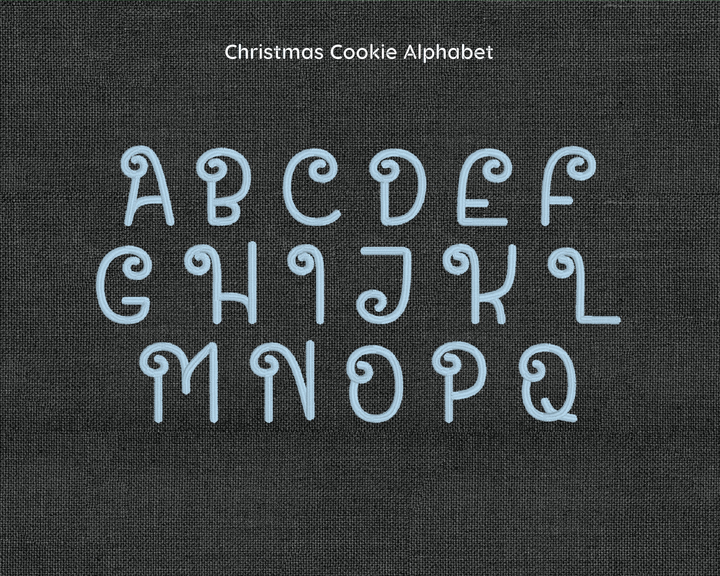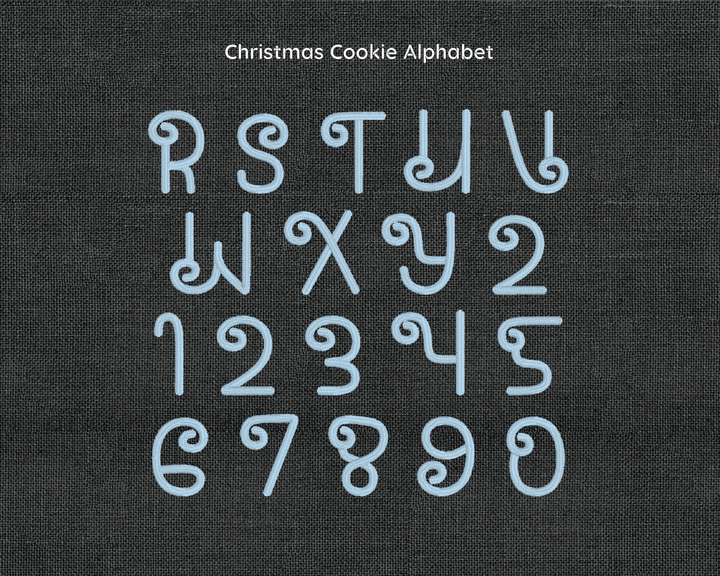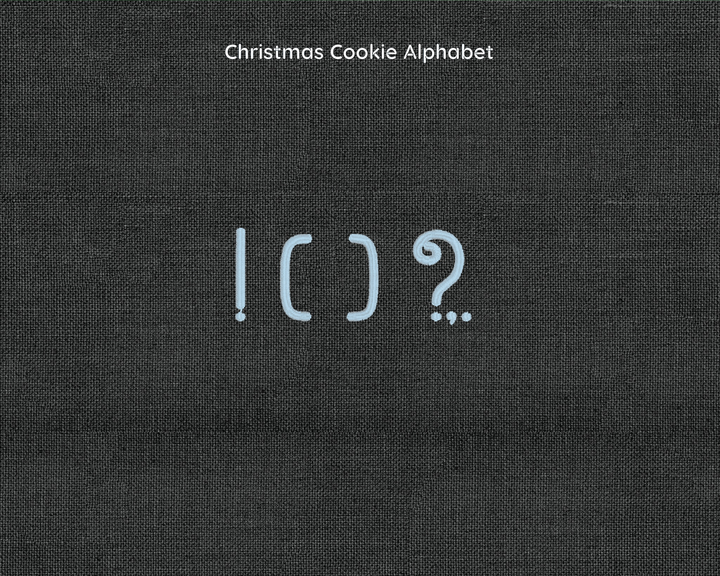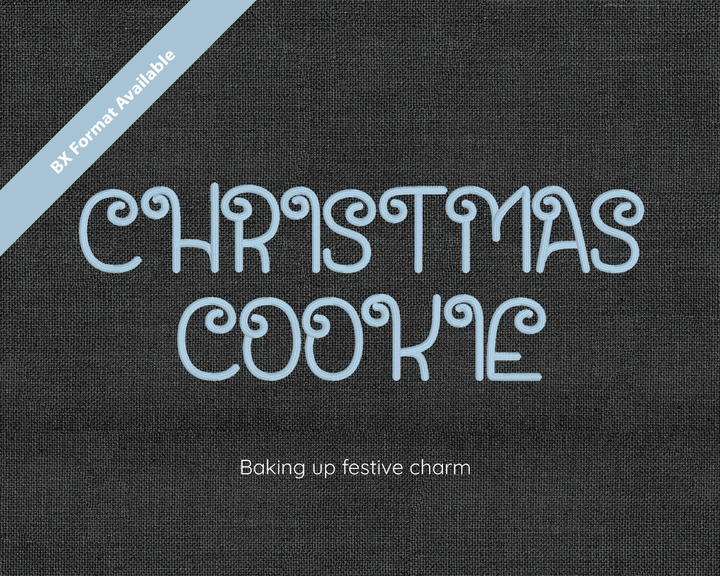
Photograph of Christmas Cookie embroidery font
Photograph of Christmas Cookie embroidery font alphabet
Christmas Cookie Digital Embroidery Font
Digital Embroidery Font
Whether you're creating personalized gifts, embellishing your clothes, or adding a touch of cuteness to your home decor, Kawaii has got you covered. With its adorable characters, this font is perfect for all your crafting needs.